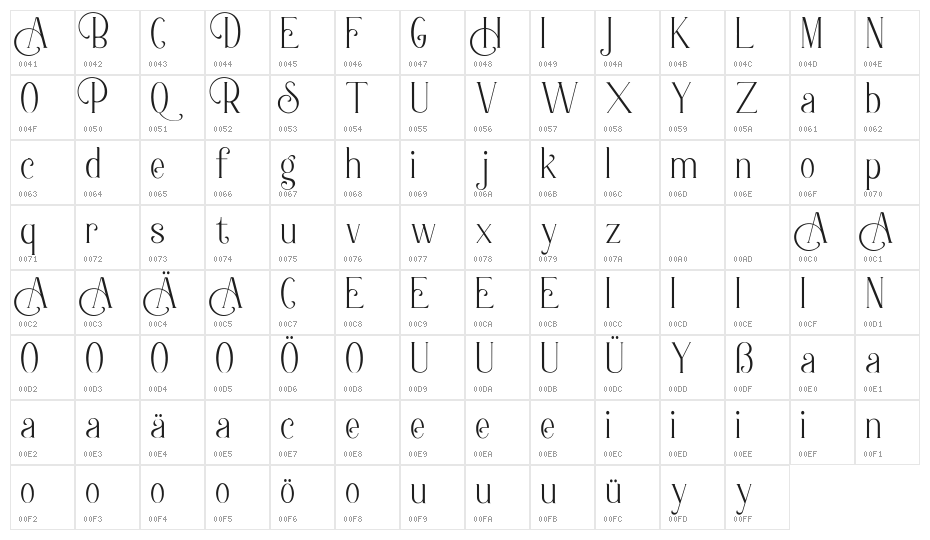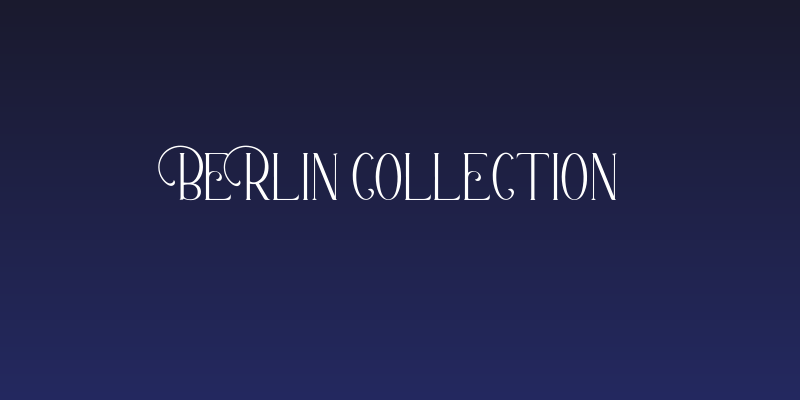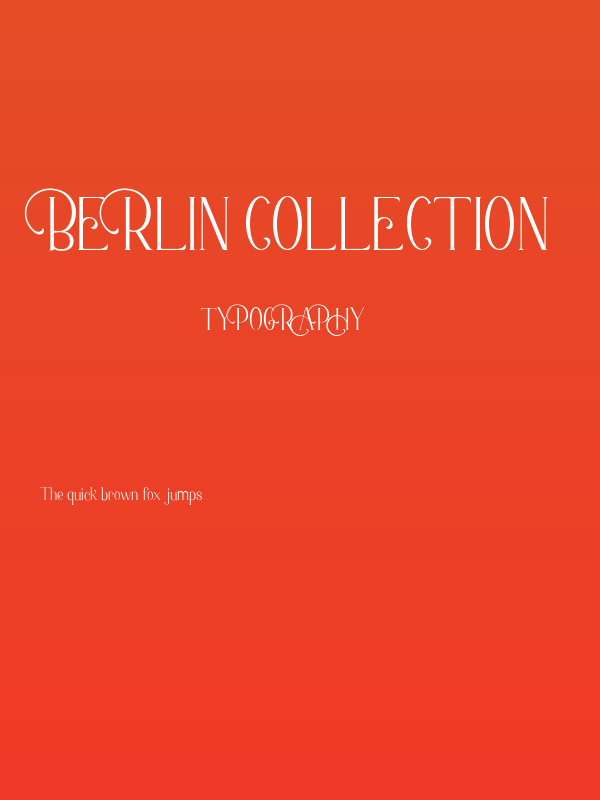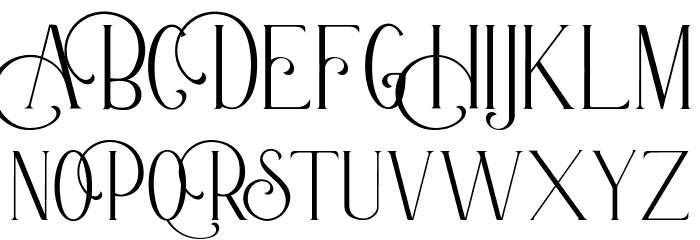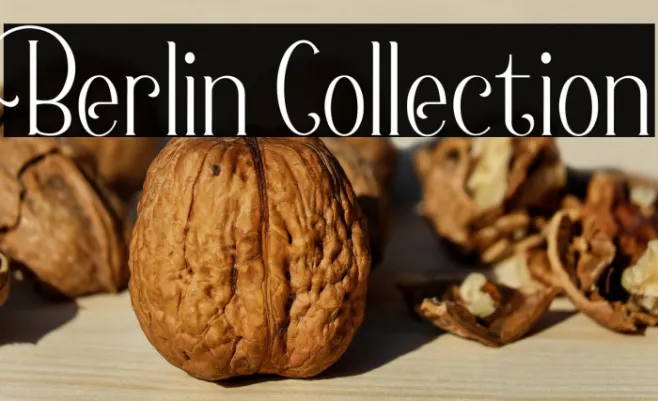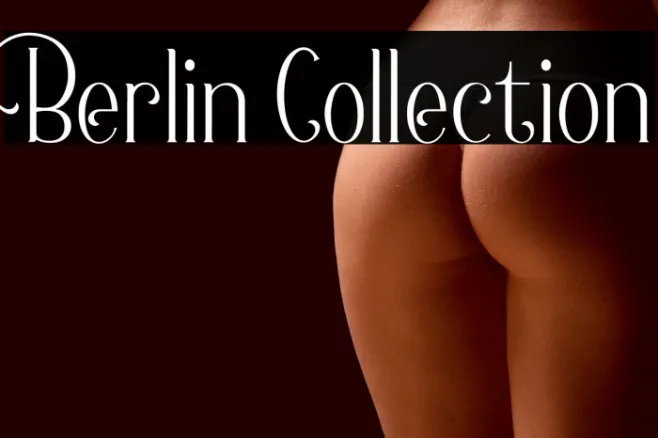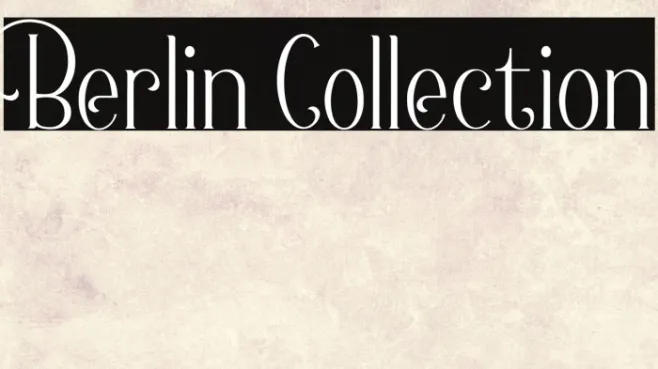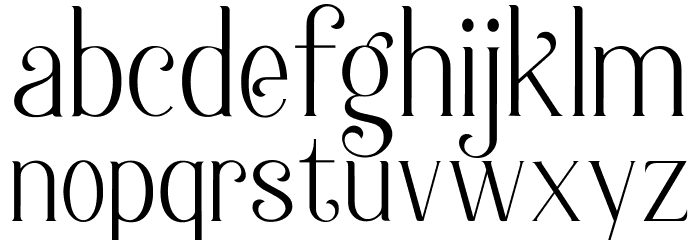
Berlin Collection Font
Berlin Collection Description
This font features a unique blend of elegance and creativity, characterized by its decorative and flowing elements. The uppercase letters are adorned with intricate swirls and loops, adding a sense of sophistication and flair. The lowercase letters maintain a more straightforward design, providing a balance between ornate and simple styles. The font exhibits a high contrast in stroke thickness, with thin lines juxtaposed against bold, sweeping curves. This contrast enhances readability while maintaining an artistic appeal. The overall style is decorative, making it suitable for projects that require a touch of elegance and creativity.
| Proposed Projects | Ideal for wedding invitations, branding, logo design, and artistic posters. |